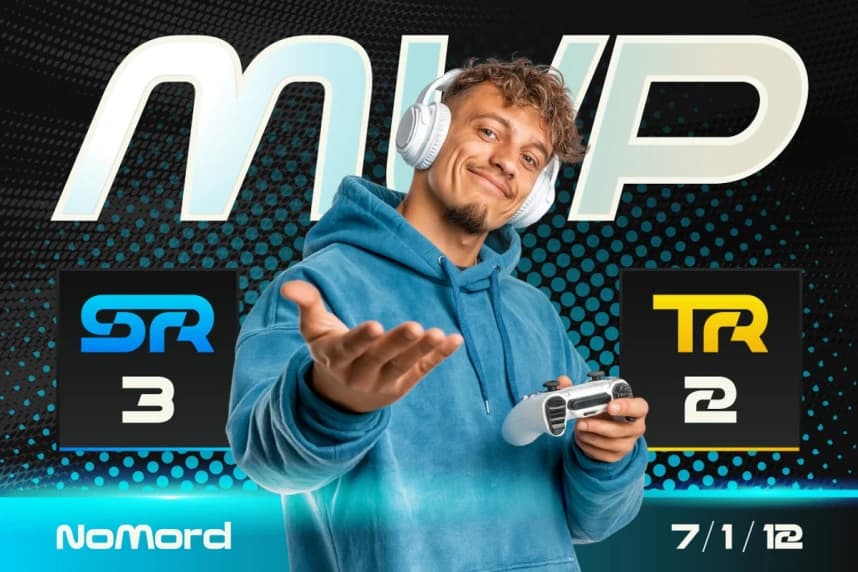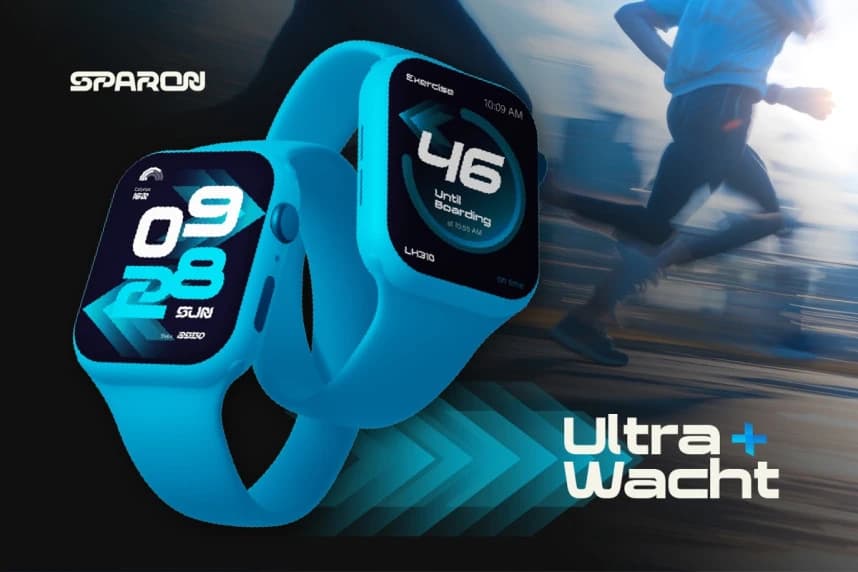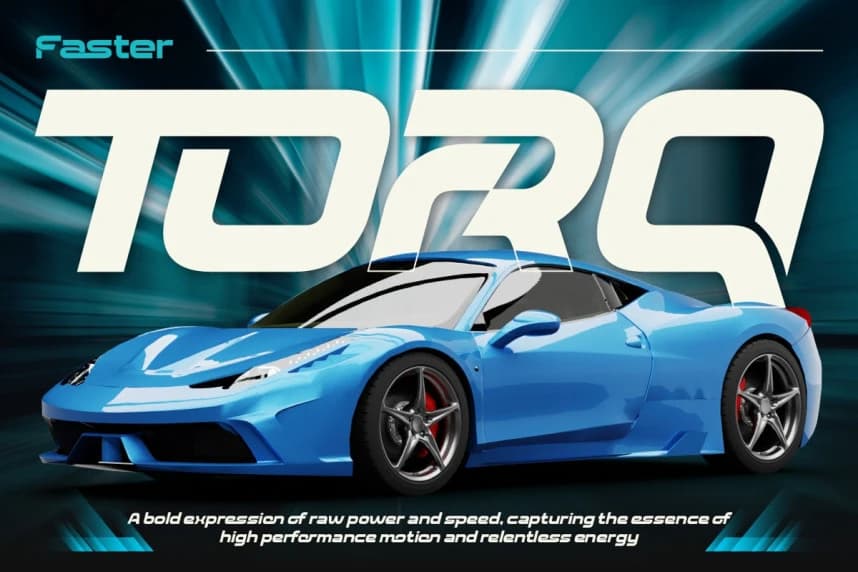
Sparon Font
Sparon Font is a bold and dynamic modern sport font designed to capture the spirit of speed, power, and high-performance energy. With its sharp cuts, futuristic curves, and aggressive style, Sparon is perfect for designs that need to feel fast, strong, and impactful.